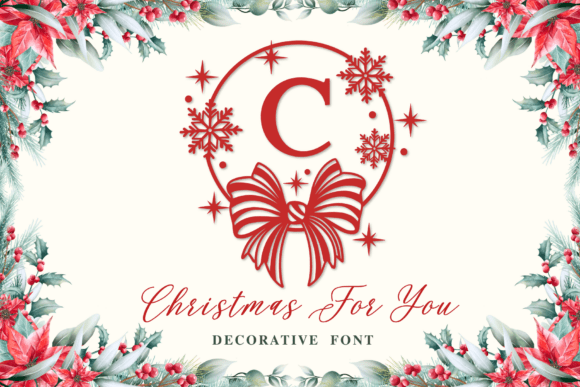
Deck the Halls with Holiday Cheer: Introducing Christmas for You Font
There’s something magical about curling up with a warm cup of hot cocoa and brainstorming new ideas for your holiday projects. The twinkling lights, the festive scents, and the joyful atmosphere all come together to spark creativity and inspire something truly special. For designers, there’s no better time to get into the holiday spirit than with the perfect font to match the season’s charm.
Enter Christmas for You Font, a beautifully crafted decorative font that brings the magic of Christmas to your creative projects. With its elegant script and festive details, this font is the perfect addition to cards, invitations, posters, crafts, and seasonal designs. Whether you’re a seasoned designer or a crafty enthusiast, Christmas for You Font is sure to add a touch of warmth and celebration to your projects.
Key Features of Christmas for You Font
- Font Styles: This font includes various styles such as Regular, Bold, Italic, and Bold Italic, providing users with multiple options to suit their needs.
- Resolution: Optimized for high-resolution displays, ensuring crisp and clear text rendering.
- Unique Characteristics: The font features a festive and playful design, perfect for creating a holiday atmosphere in designs, graphics, and documents.
- Character Count: Includes a large character set, covering Latin, Cyrillic, and Greek alphabets, as well as various punctuation and special characters.
Designer Review: Christmas for You Font
Overall, I found the Christmas for You Font to be a solid choice for holiday-themed designs. ✨ Its classic, elegant feel is reminiscent of traditional Christmas decorations and adds a touch of sophistication to any project.
Here are some of the font’s strengths:
- Beautiful, intricate details ✨ – The font’s ornate design elements make it perfect for adding a festive touch to invitations, cards, and other holiday materials.
- Excellent legibility ✨ – The font is easy to read, even in smaller sizes, making it suitable for a wide range of applications.
- Wide character set ✨ – The font includes a comprehensive set of characters, including punctuation marks, numbers, and special symbols.
- Limited font weight options ⚠️ – The font only comes in a single weight, which may not provide enough flexibility for designers working on projects with varying text styles.
- No italic or bold styles ⚠️ – While the font’s classic design is appealing, the lack of italic or bold styles may limit its use in certain contexts.
Overall, I would recommend the Christmas for You Font to designers looking for a timeless, elegant holiday font. While it may have some limitations, its strengths make it a great choice for a variety of projects.